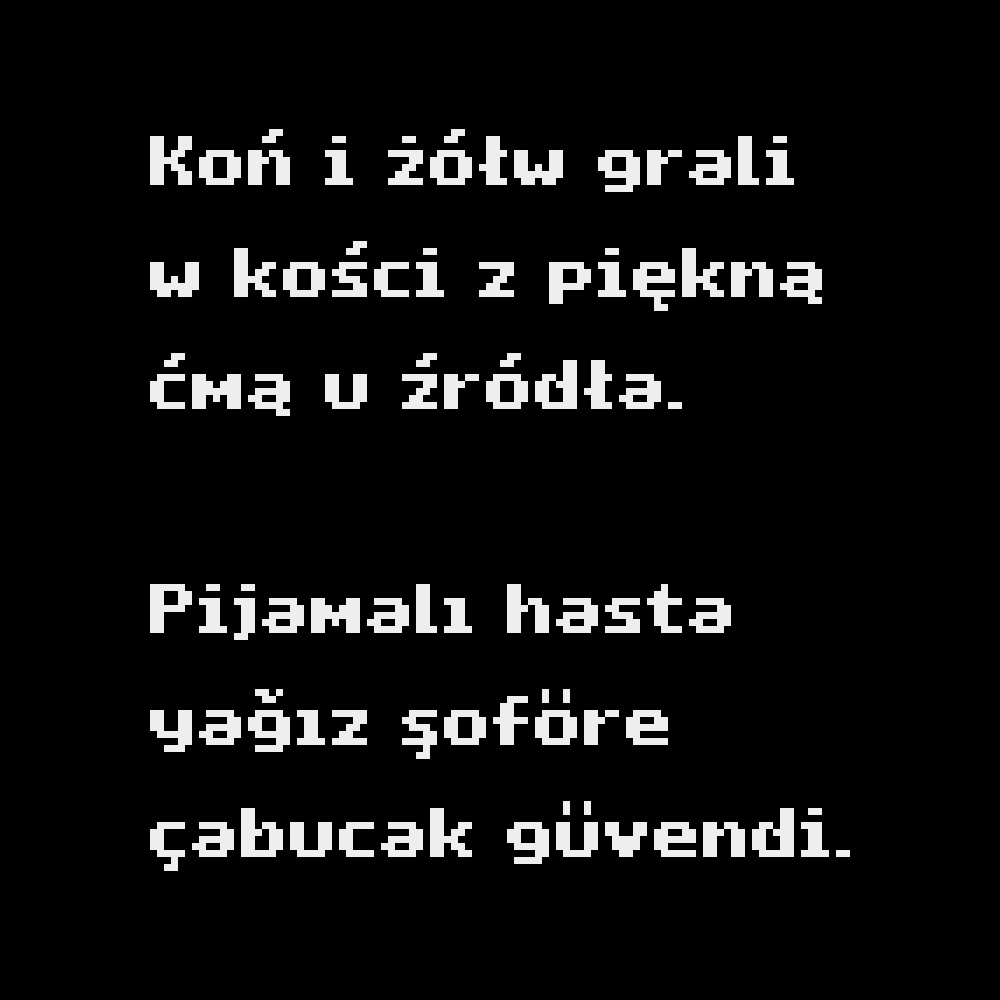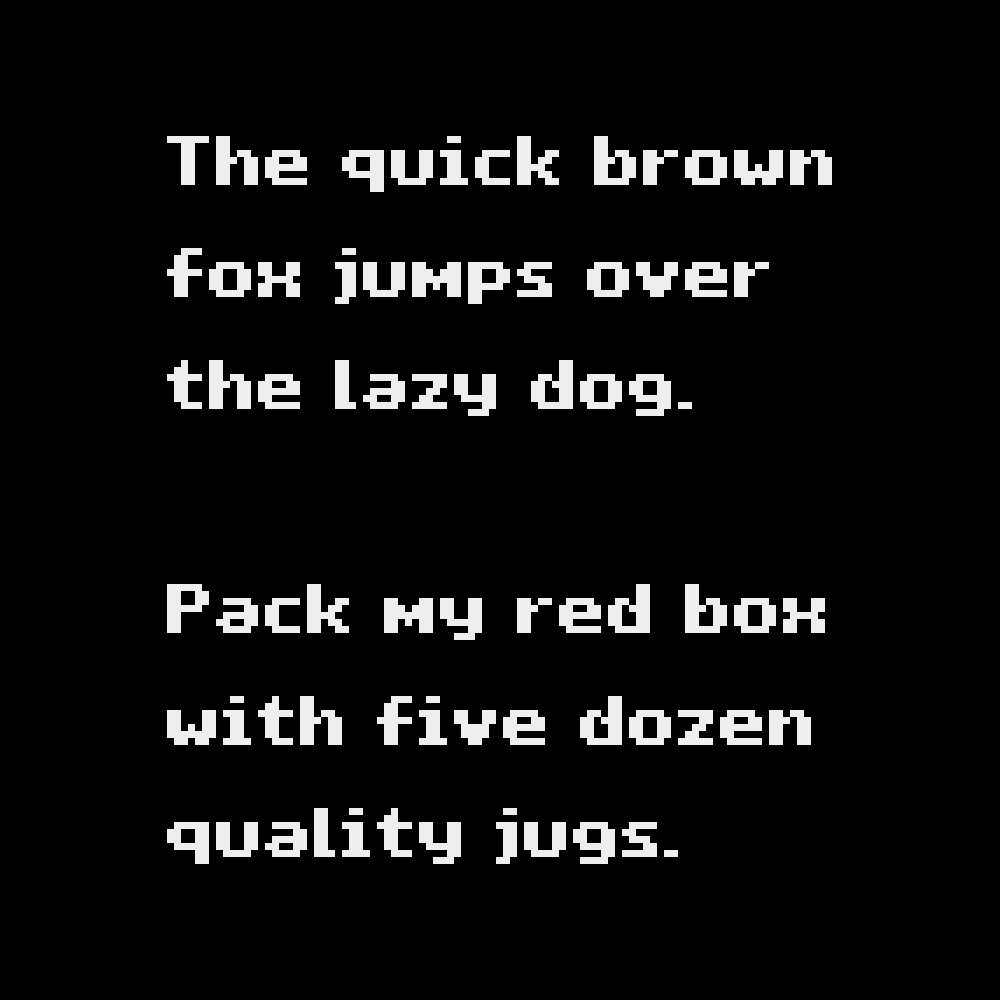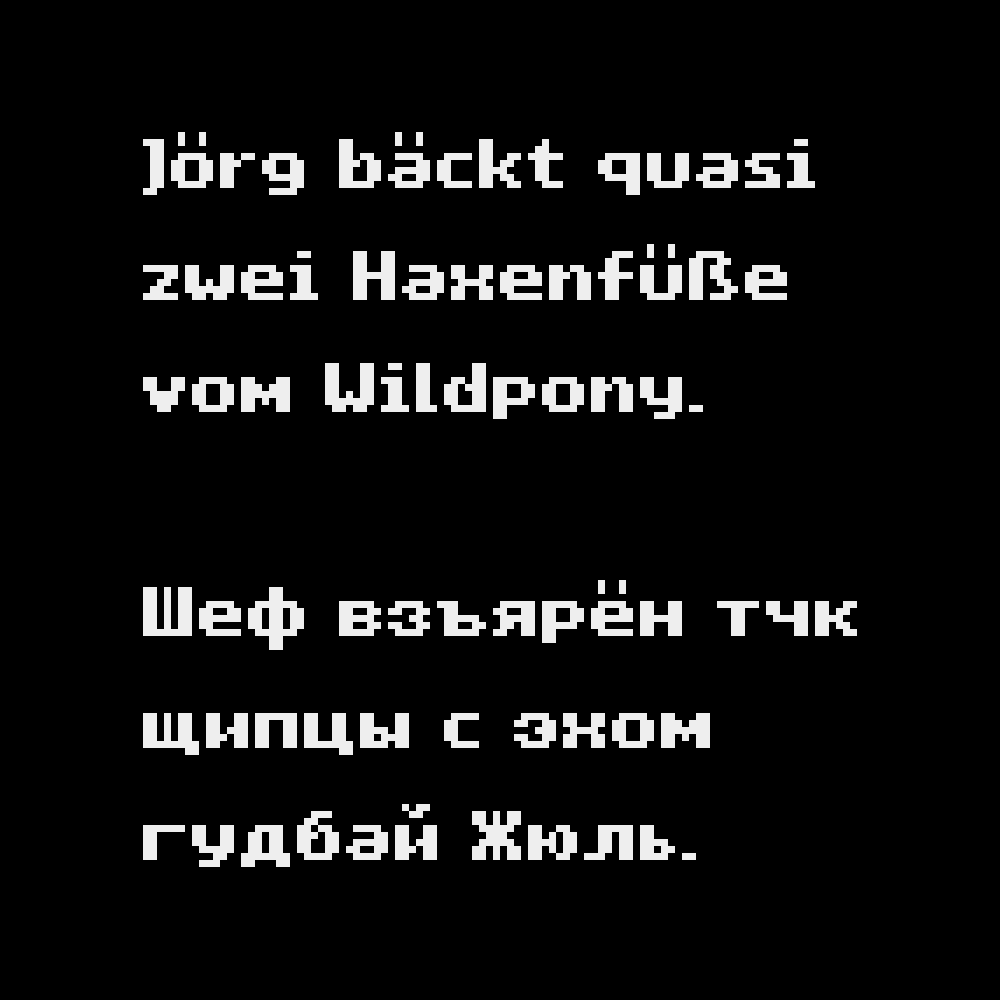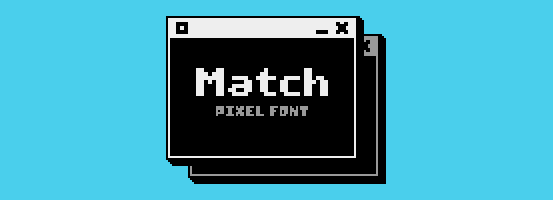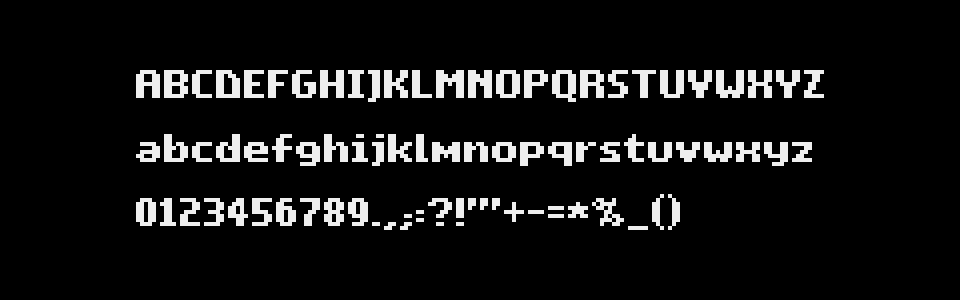
Match is a classic, joyful, 7px tall pixel font!
Full Character Set:
ABCDEFGHIJKLMNOPQRSTUVWXYZ abcdefghijklmnopqrstuvwxyz 0123456789.,;:?!"'+-=*%_() []{}~#&@©®™°^`|/\<>…€$£¢¿¡“”‘’«»‹›„‚·• ÀÁÂÄÃÅĄÆÇĆÐÈÉÊËĘĞÌÍÎÏİŁÑŃÒÓÔÖÕŐØŒŚŞẞÞÙÚÛÜŰÝŸŹŻàáâäãåąæçćðèéêëęğìíîïıłñńòóôöõőøœśşßþùúûüűýÿźżАБВГҐДЕЁЄЖЗИІЇЙКЛМНОПРСТУФХЦЧШЩЪЫЬЭЮЯабвгґдеёєжзиіїйклмнопрстуфхцчшщъыьэюя
Supported languages:
English, French, Italian, German, Spanish, Portuguese, Danish, Swedish, Norwegian, Icelandic, Hungarian, Polish, Turkish, Russian, Ukrainian…